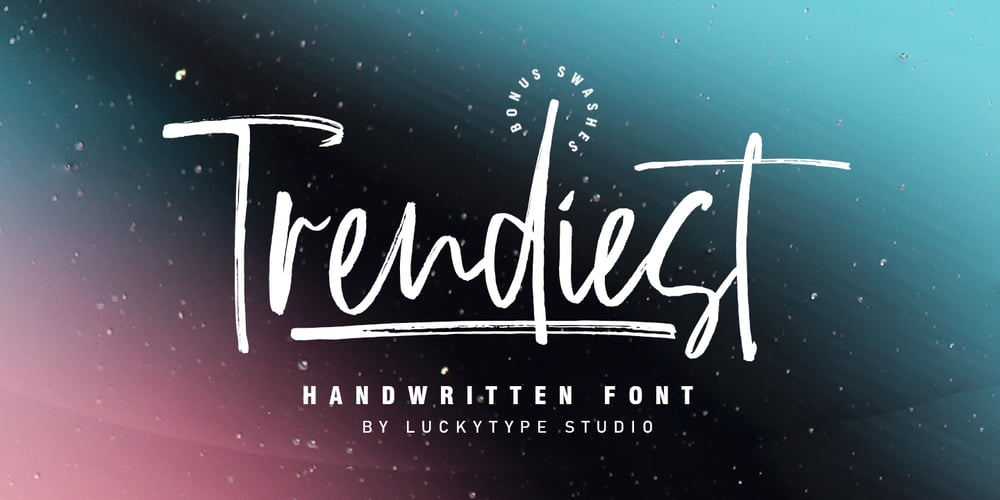
Trendiest Font Family was designed by Muhammad Fajar and published by Lucky Type. Trendiest contains 2 styles and family package options. Hello designers, let me introduce my newest handwritten font Trendiest. Trendiest is a new modern handwritten font with a bold style and contemporary design approach, naturally handcrafted, perfect for use in title designs such as clothing, invitations, book titles, stationery designs, quotes, branding, logos, greeting cards, T-shirts , packaging design, posters and more.Complete with upper and lower case letters, as well as multilingual support, numbers, punctuation, and some excellent ligatures.Thank you so much for looking and let me know if you have any questions.